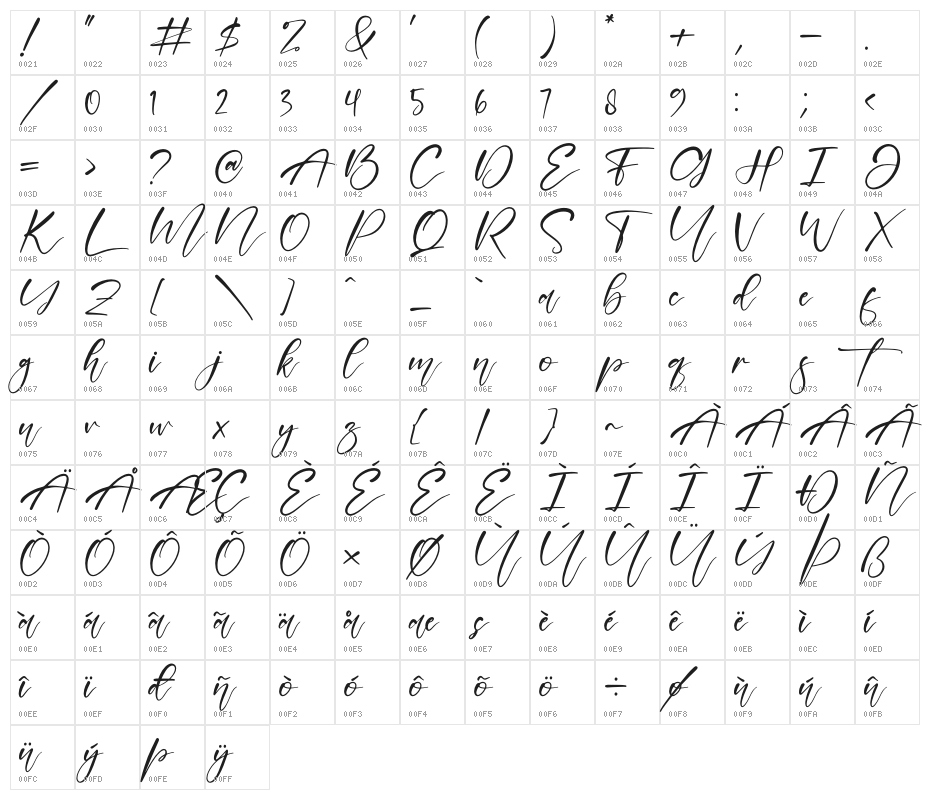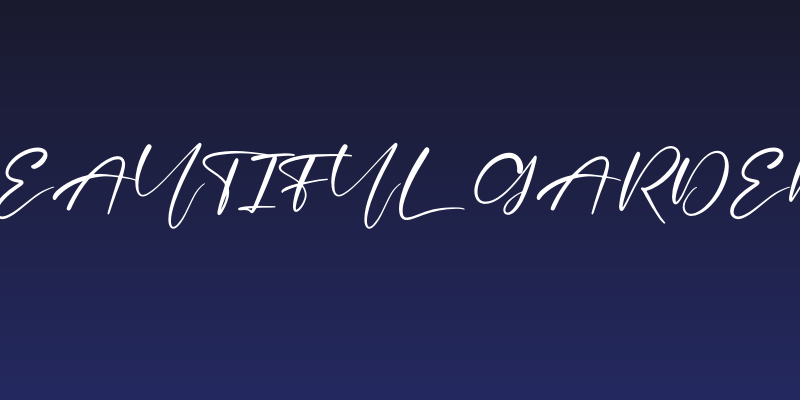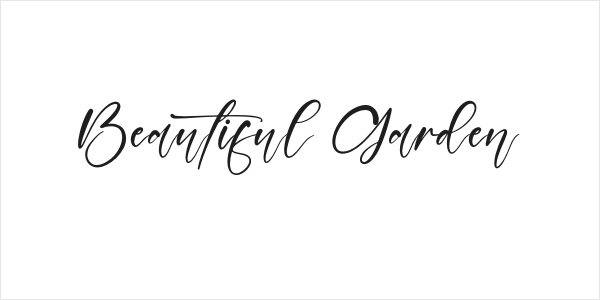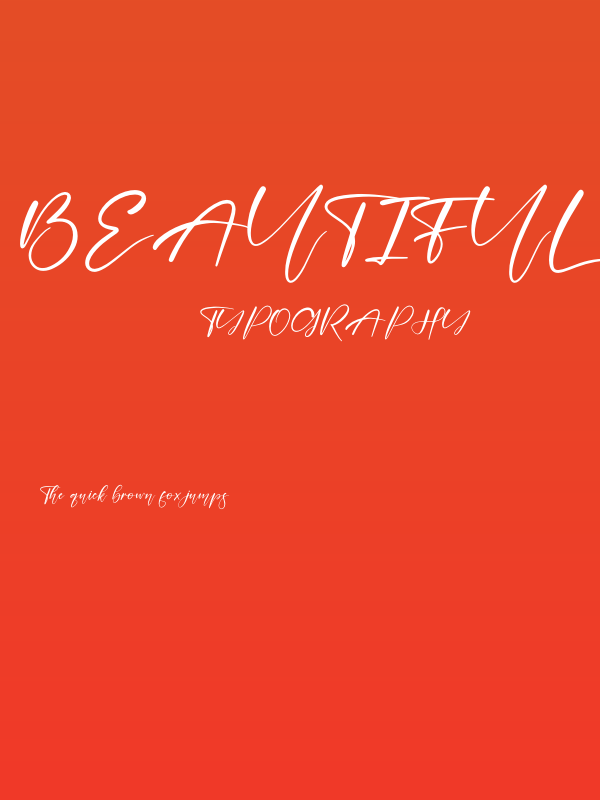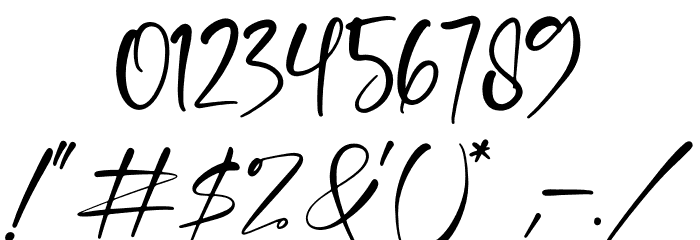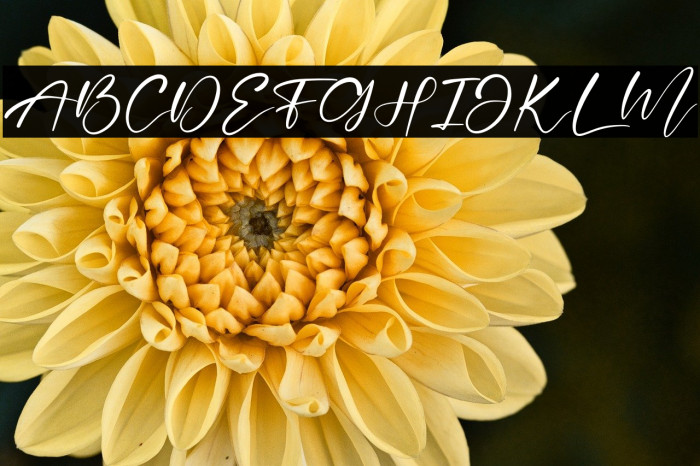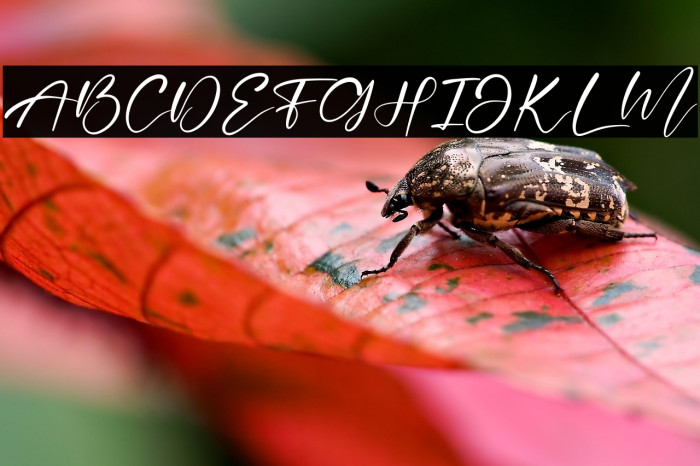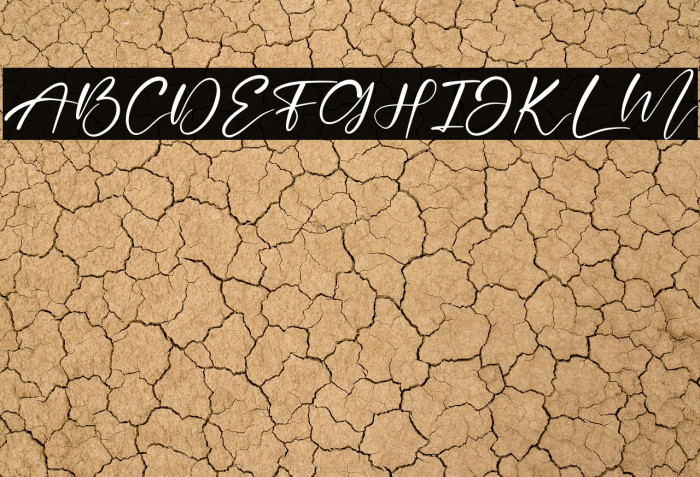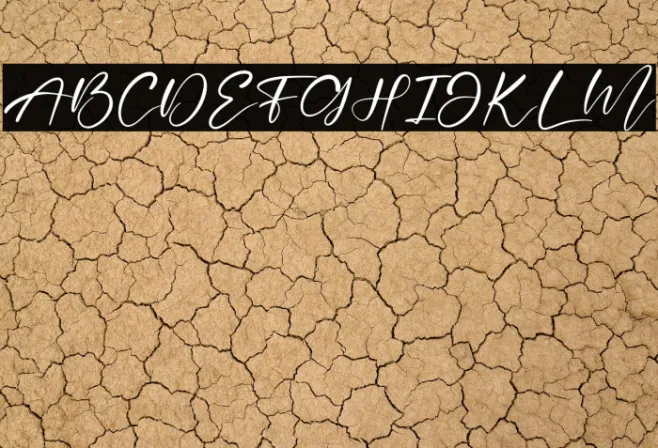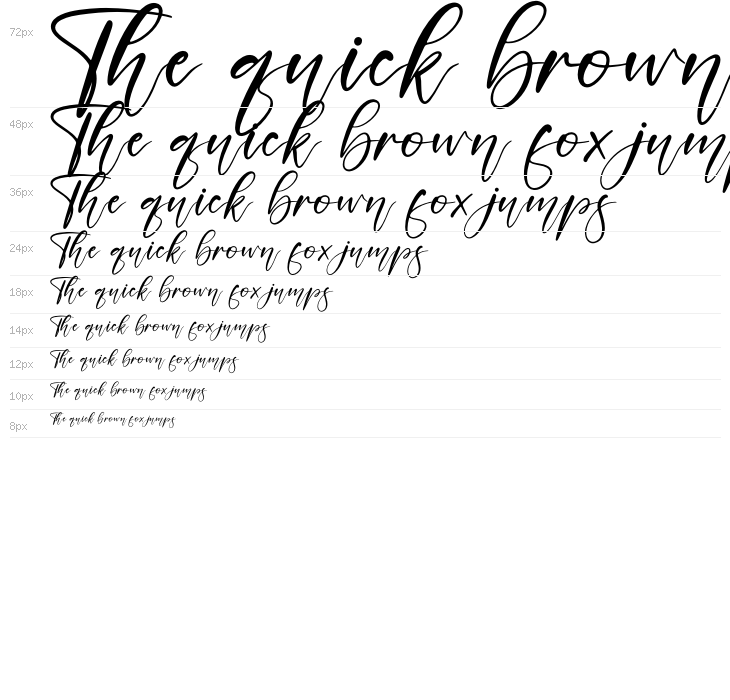
Beautiful Garden Font
Beautiful Garden Description
This font features an elegant and flowing script style, characterized by its fluid, cursive letterforms. The uppercase letters are tall and graceful, with sweeping ascenders and descenders that add a sense of movement and sophistication. The lowercase letters are equally fluid, with a harmonious connection between characters that enhances readability while maintaining an artistic flair. The numbers and special characters are designed with the same attention to detail, ensuring consistency across all glyphs. This font exudes a sense of elegance and charm, making it ideal for projects that require a personal and stylish touch.
| Use Case | Headlines, Invitations, Branding |
| Proposed Projects | Ideal for wedding invitations, greeting cards, branding, and elegant packaging designs. |